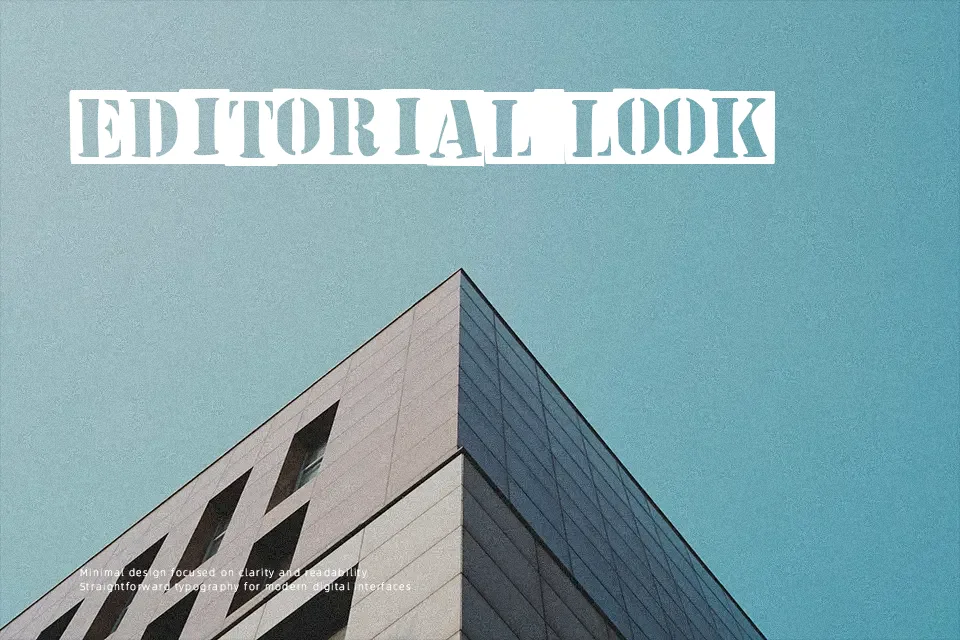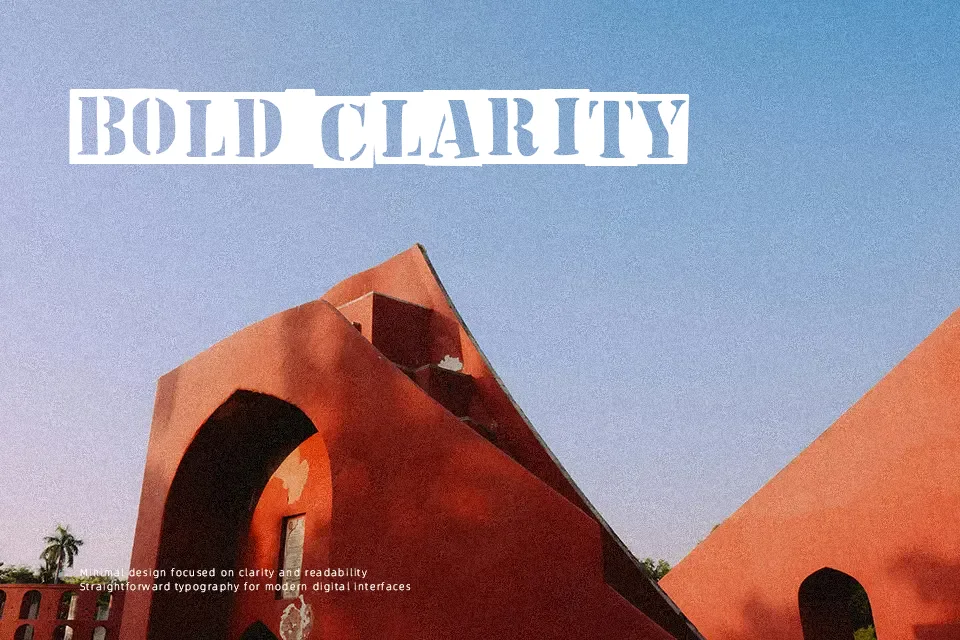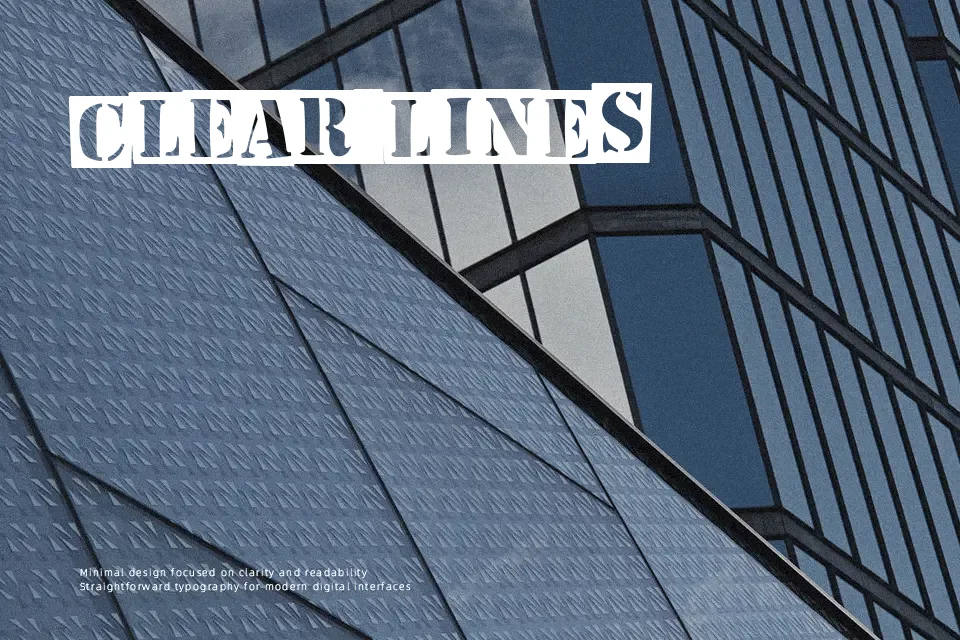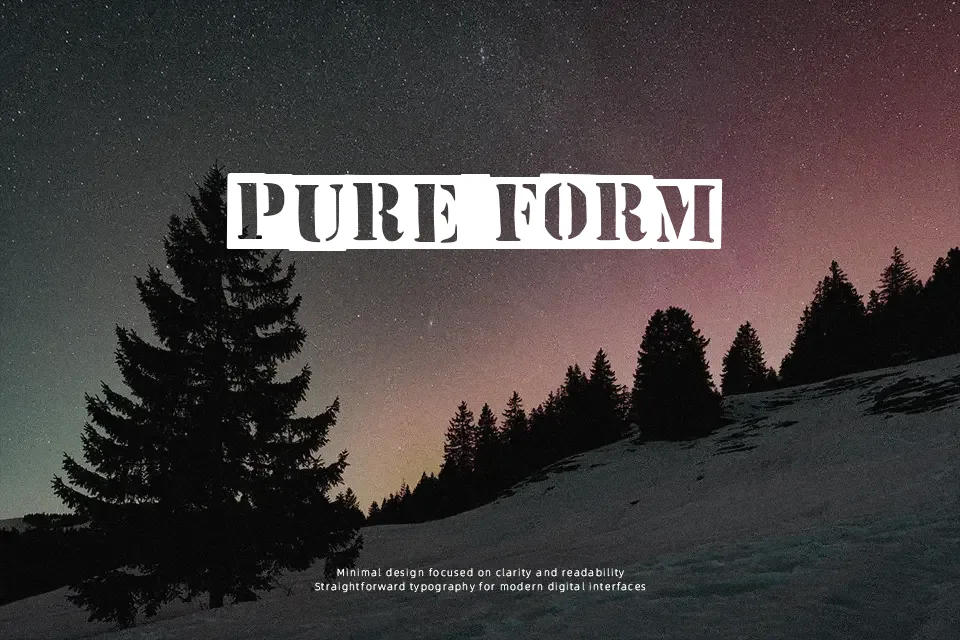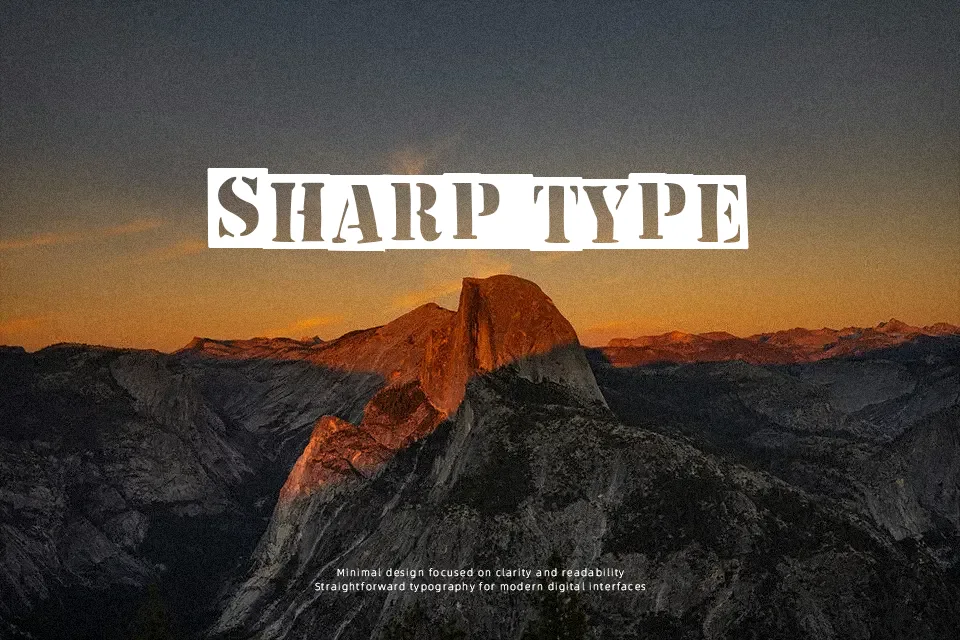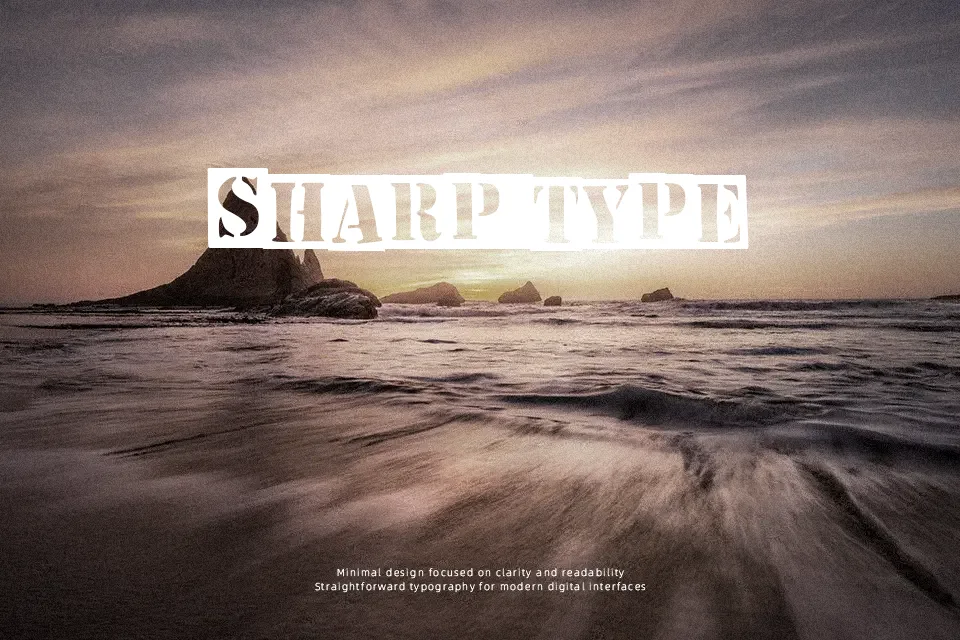
The Invert Stencil Font
Built on solid rectangular silhouettes, The Invert Stencil Font creates its letterforms through reversed cutouts and high-contrast structural gaps. The heavy outer blocks and clean internal channels give each glyph an unmistakable industrial presence, paired with tight, disciplined spacing engineered strictly for headline dominance. Stroke contrast is extreme by nature, alternating between dense black planes and narrow blank incisions. Because the dense shapes pack significant visual weight, the typeface performs exceptionally well in massive titling but loses legibility when forced into smaller display lines or extended reading layouts.
Best For: industrial packaging labels, apparel print graphics, music festival banners, warehouse signage headers
Not Ideal For: continuous body text, mobile interface labels, dense editorial paragraphs, technical documentation